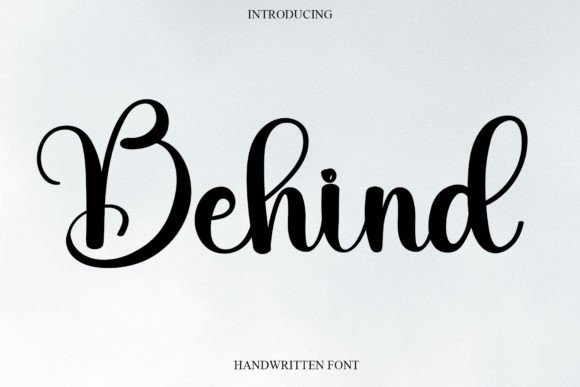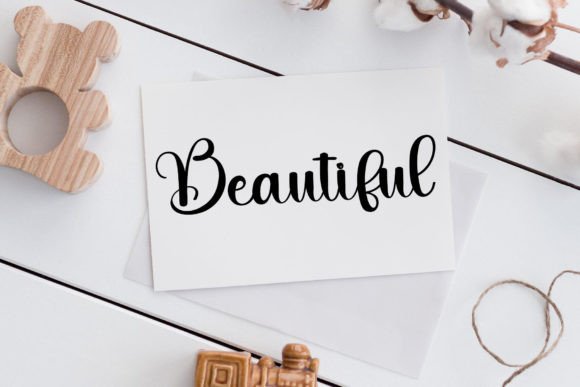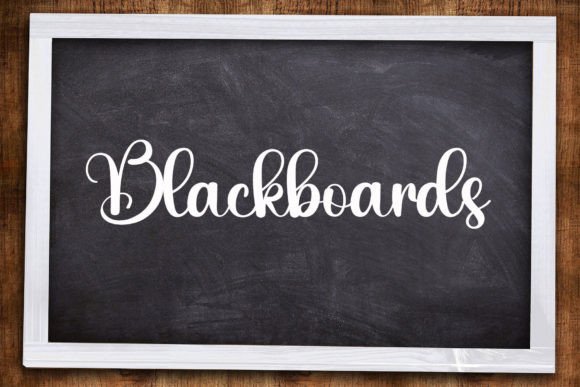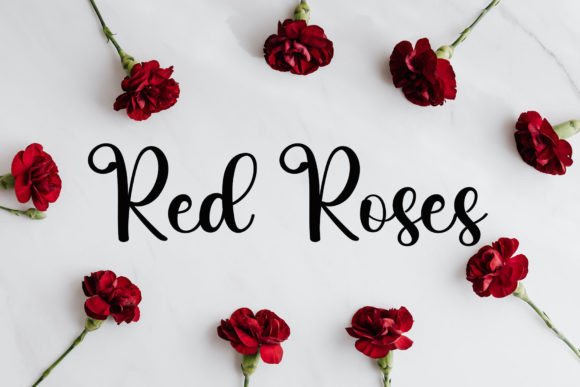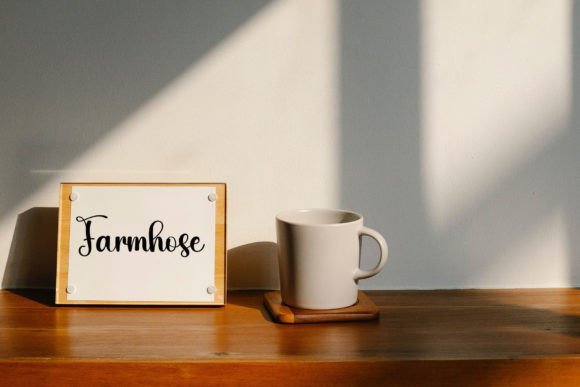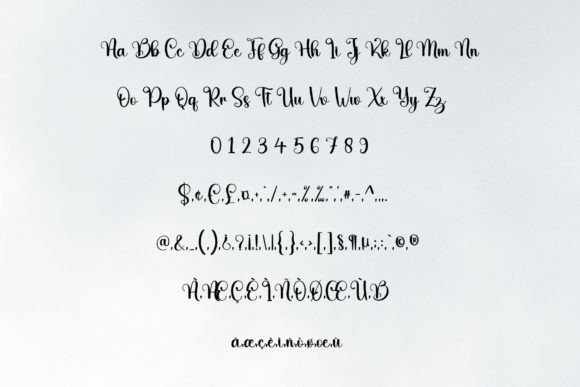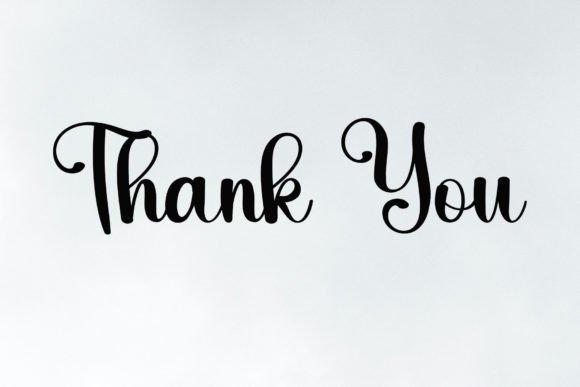
Behind Font
About Behind Font
“Behind” is a sweet and beautiful handwritten font that enchants with its charming aesthetics. With characters that gracefully dance along the baseline, this font promises to infuse a luxurious spark into any design project you undertake.
The charm of “Behind” lies in its delicate and handwritten style, which brings a personal and authentic touch to your designs. This font is a versatile choice suitable for a variety of projects, adding an element of sophistication to everything from invitations to branding materials.
The unique feature of characters dancing along the baseline adds a dynamic and playful quality to “Behind.” This characteristic enhances the font’s versatility, allowing it to adapt seamlessly to different design contexts. Whether used for digital or print media, “Behind” maintains its visual appeal, making it an excellent choice for those looking to add a touch of elegance to their projects.
The luxury spark that “Behind” brings to design projects is especially noteworthy. Whether applied to product packaging, branding materials, or any creative endeavor, this font elevates the overall aesthetic, making a lasting impression. Its handwritten charm creates a connection with the audience, adding a layer of authenticity that resonates with discerning viewers.
In summary, “Behind” is not just a font; it’s a design asset that infuses sweetness, beauty, and luxury into your creative projects. Its handwritten style, combined with characters that dance along the baseline, creates a visual allure that is sure to captivate. “Behind” is a delightful choice for anyone looking to add a touch of charm and sophistication to their design toolbox.